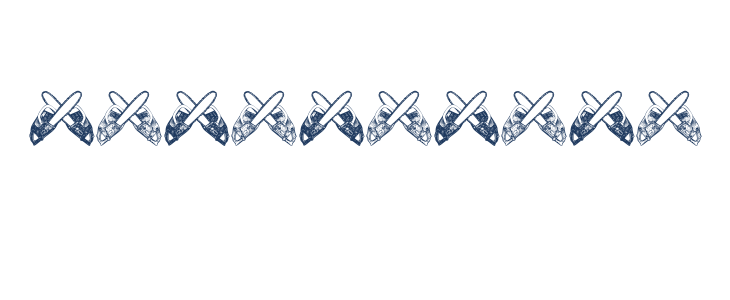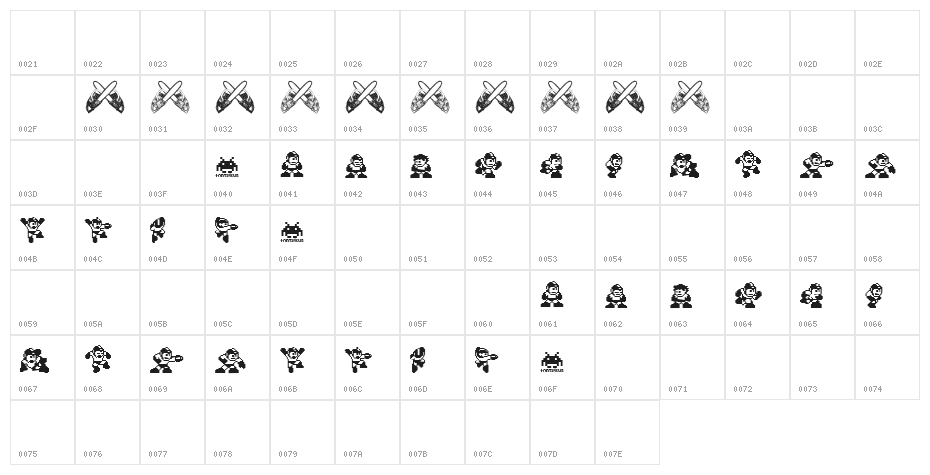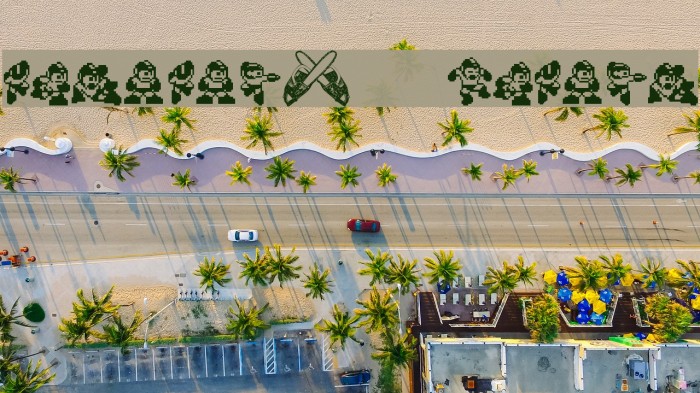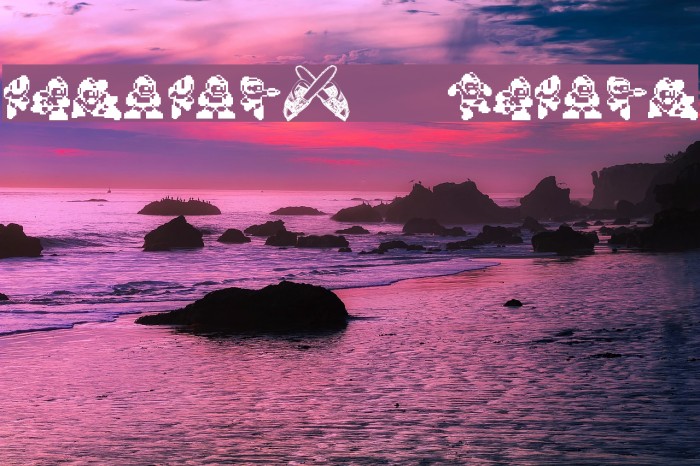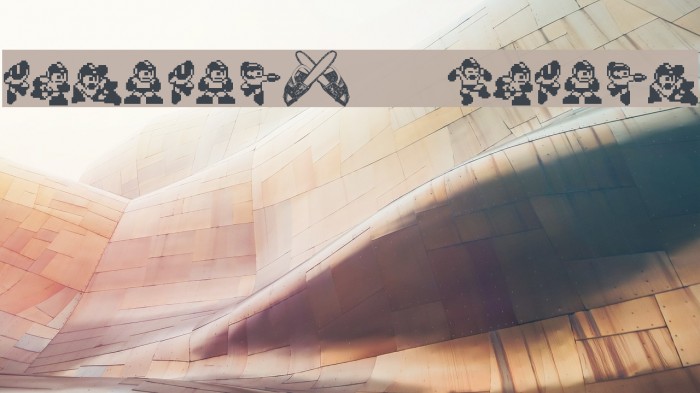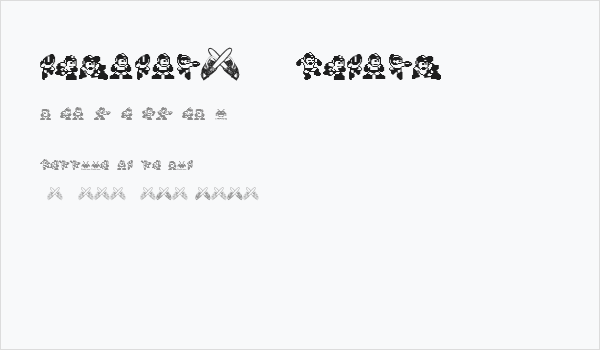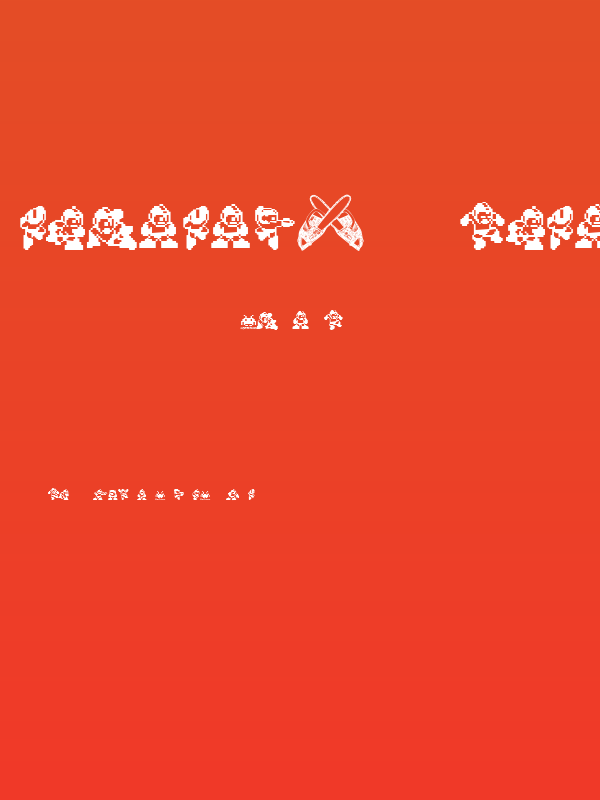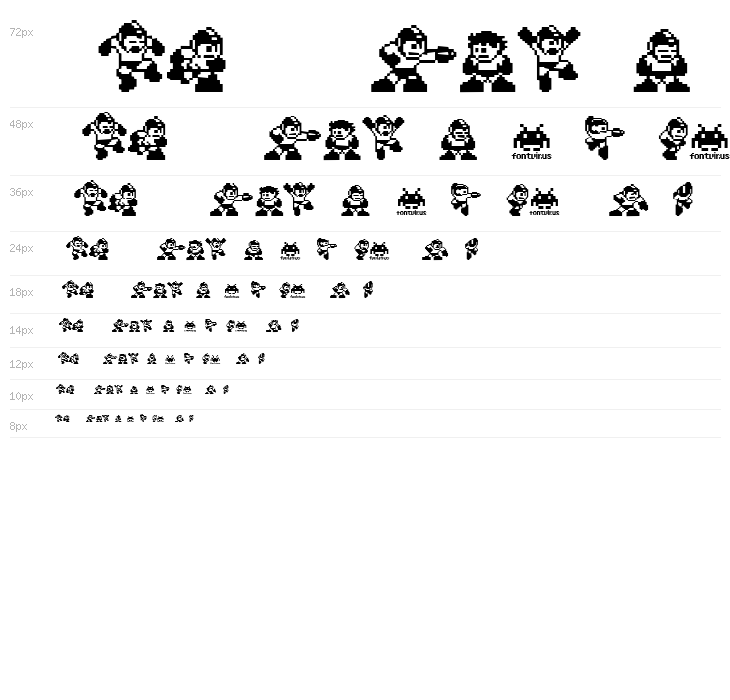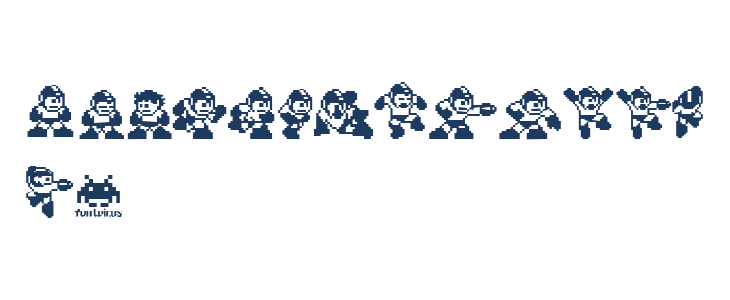
MegaMan2 .TheMang Font
MegaMan2 .TheMang Description
| Overall Style | Retro, Decorative, Pixel-art |
| Use Case | Logos, Headlines, Posters, Game UIs |
| Proposed Projects | Retro game interfaces, nostalgic posters, themed party invitations, fan art, digital art projects. |